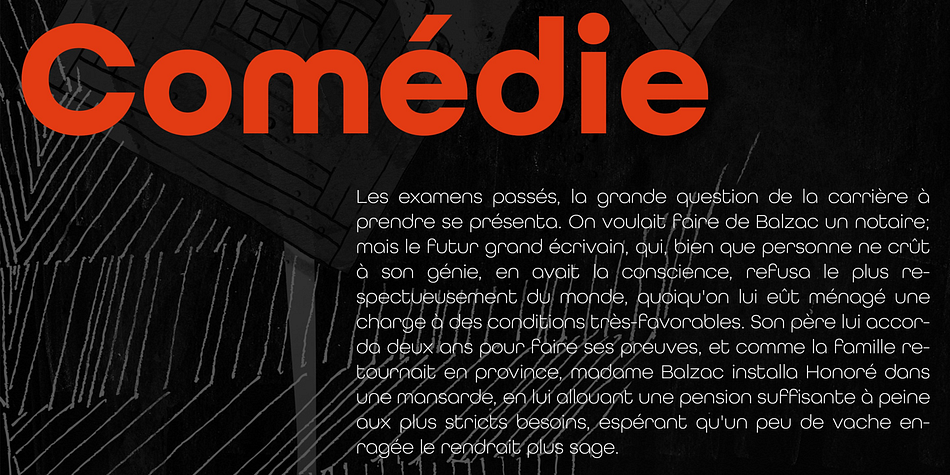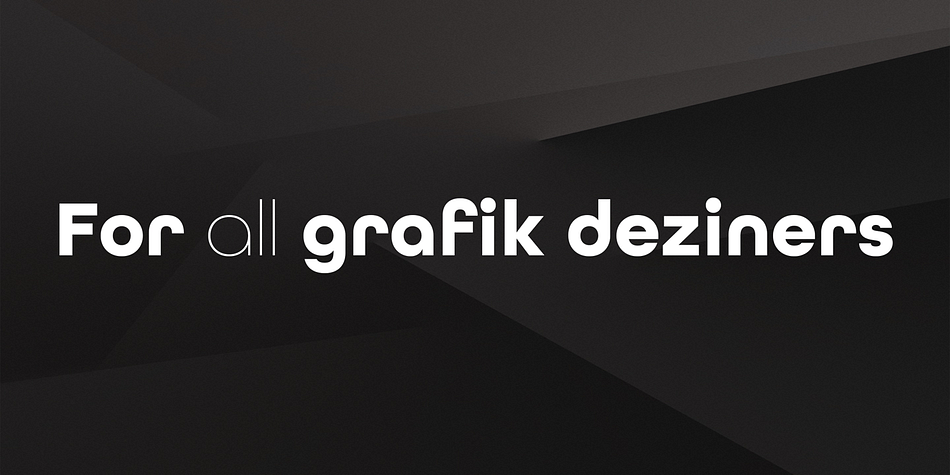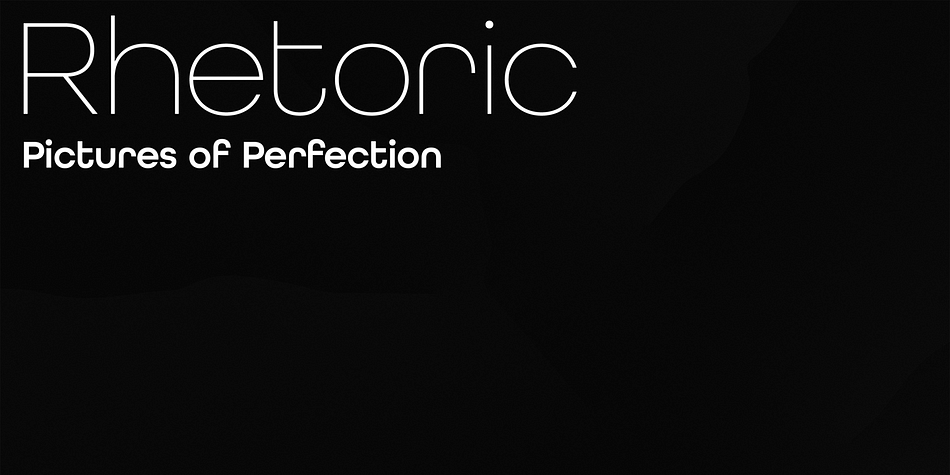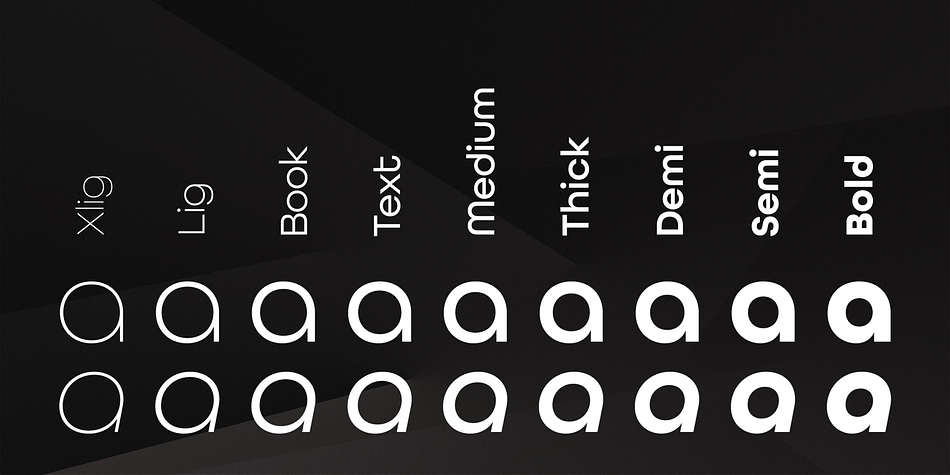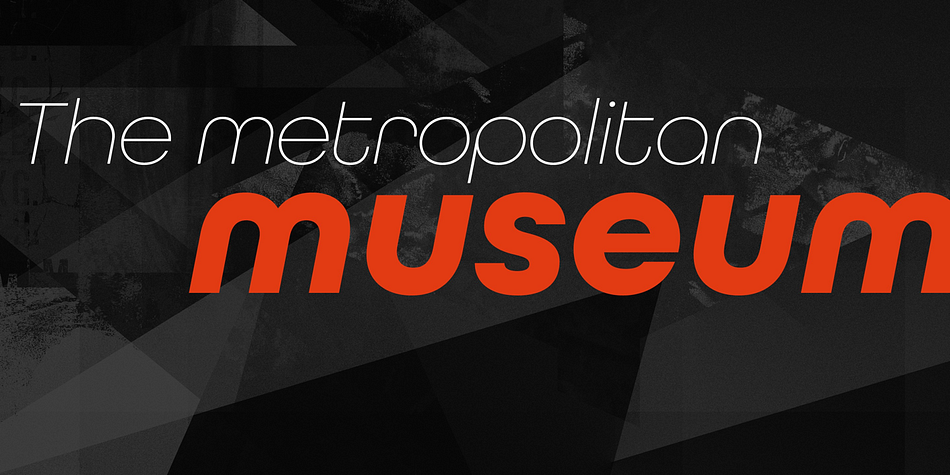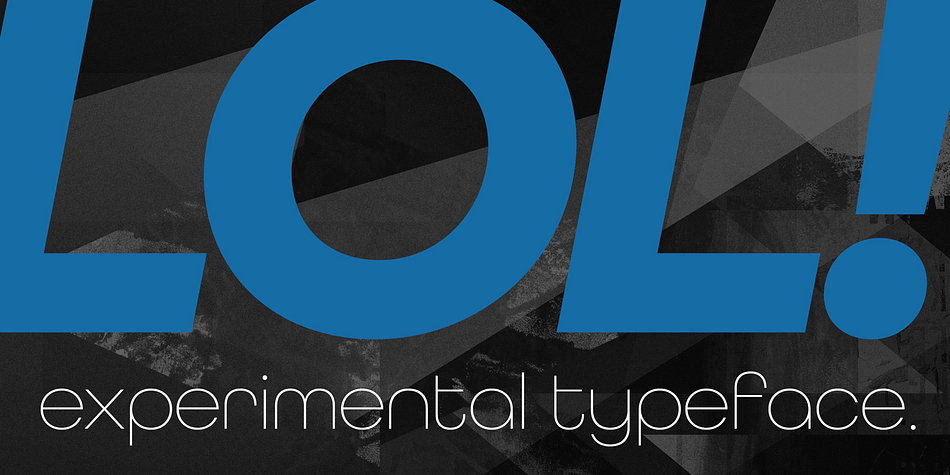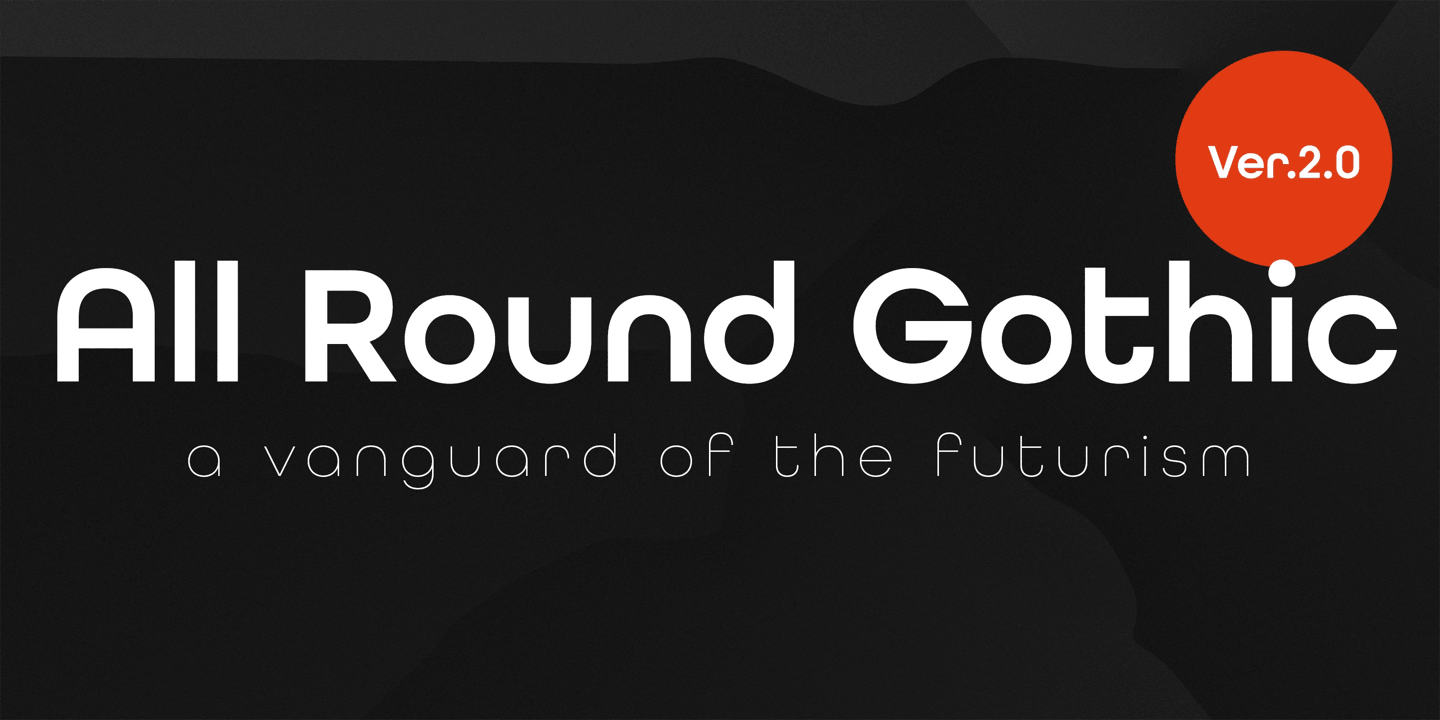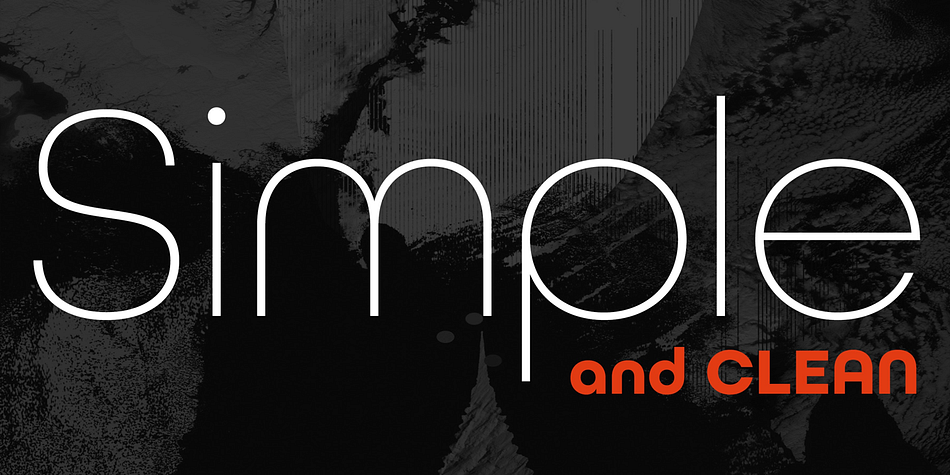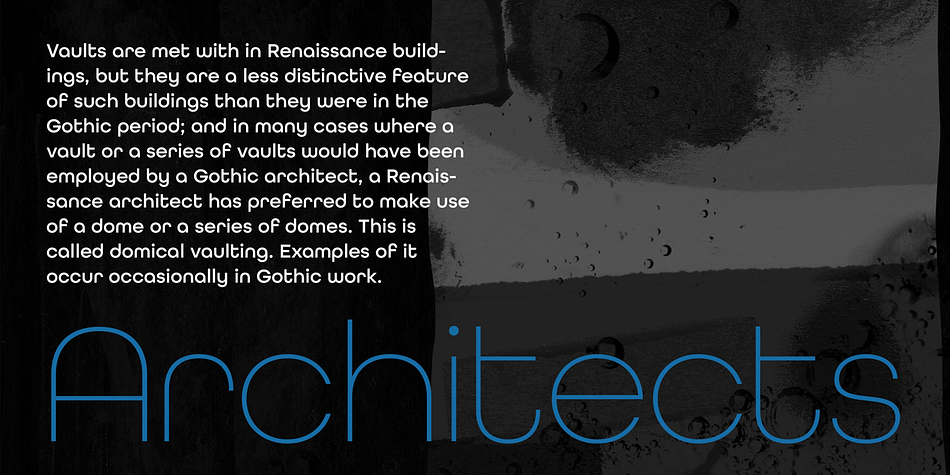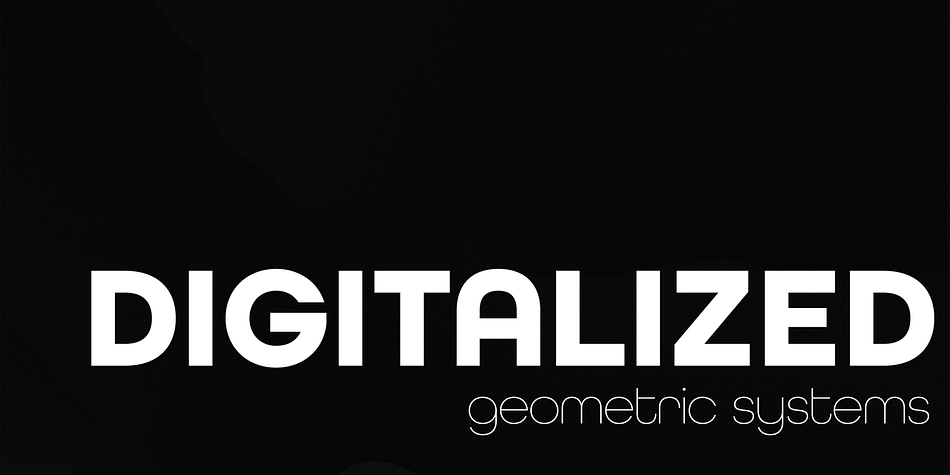
All Round Gothic is a sans serif font family. This typeface has eighteen styles and was published by Dharma Type.
Originally designed in 2012 by Ryoichi Tsunekawa, All Round Gothic is a font family inspired by classic sans serif fonts such like Avant Garde Gothic and Futura.
All Round Gothic is a structured geometric sans, but also they make sweet and cute atmosphere by removing their unnecessary stems. And also they make an organic impression in some degree by their bowls shaped by not-perfectly-geometric circles. As a result, All Round Gothic became a new font family that covers between 1920s Bauhaus and contemporary design trend comprehensively and one of the most suitable family for any purpose such like text, headline, logo, poster, and animations by their clean and legible but soft and friendly letterforms. All Round Gothic includes 5weights and obliques corresponding to each weight. Why don’t you try this family if you got a little bored with classic sans serifs.